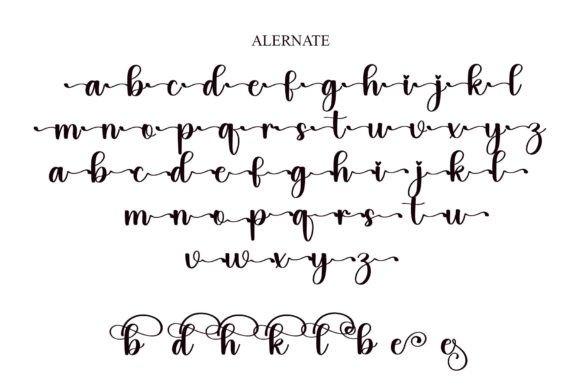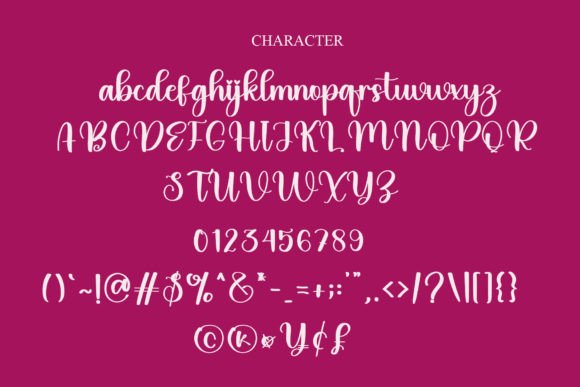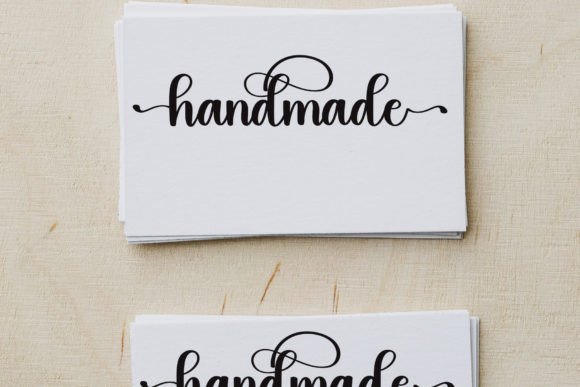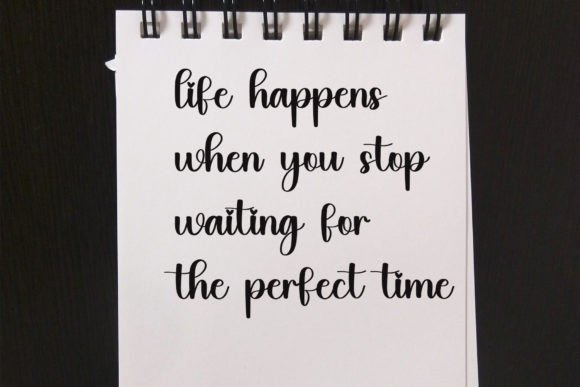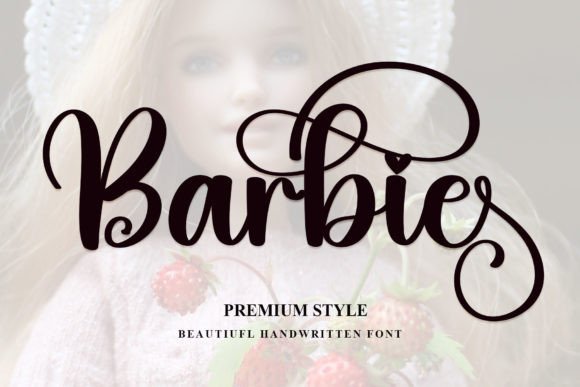
Introducing Barbie Font: The Enchanting Handwritten Typeface for Your Creative Projects
Are you a designer, crafter, or DIY enthusiast looking for a font that can add a touch of romance and whimsy to your next project? Look no further than the Barbie Font, a beautiful and versatile handwritten typeface that’s perfect for a wide range of applications. From greeting cards to headlines, and from digital media to print materials, this enchanting font is sure to captivate your audience and leave a lasting impression.
What Makes Barbie Font So Special?
Barbie Font is a unique and charming typeface that’s inspired by the classic and timeless elegance of the iconic Barbie doll. With its flowing curves, delicate lines, and whimsical flair, this font is guaranteed to add a romantic feel to your next project. Whether you’re creating a wedding invitation, a children’s book, or a social media graphic, Barbie Font is the perfect choice for anyone looking to add a touch of femininity and sophistication to their design.
Key Features of Barbie Font
- Handwritten style: Barbie Font is a handwritten typeface that features a natural, fluid script that’s perfect for creating a personal and intimate feel.
- Versatile: This font is incredibly versatile and can be used for a wide range of applications, from greeting cards to headlines, and from digital media to print materials.
- Romantic feel: Barbie Font is guaranteed to add a romantic feel to your next project, making it perfect for weddings, anniversaries, and other special occasions.
- Elegant and sophisticated: With its flowing curves and delicate lines, Barbie Font is the perfect choice for anyone looking to add a touch of elegance and sophistication to their design.
How to Use Barbie Font in Your Projects
Barbie Font is incredibly easy to use and can be incorporated into your projects in a variety of ways. Here are a few ideas to get you started:
- Greeting cards: Use Barbie Font to create beautiful and personalized greeting cards for special occasions like weddings, birthdays, and holidays.
- Headlines: Add a touch of elegance and sophistication to your headlines with Barbie Font, perfect for blog posts, social media graphics, and print materials.
- Children’s books: Barbie Font is a great choice for children’s books, adding a touch of whimsy and wonder to your story.
- Digital media: Use Barbie Font to create stunning digital media, including social media graphics, blog posts, and email newsletters.
Tips and Tricks for Getting the Most Out of Barbie Font
Here are a few tips and tricks for getting the most out of Barbie Font:
- Experiment with different colors: Barbie Font looks great in a variety of colors, so don’t be afraid to experiment and find the perfect hue for your project.
- Pair with other fonts: Barbie Font pairs well with a variety of other fonts, so try combining it with other typefaces to create a unique and interesting look.
- Use it sparingly: While Barbie Font is beautiful and elegant, it can be overwhelming if used too much. Use it sparingly to add a touch of sophistication and whimsy to your design.